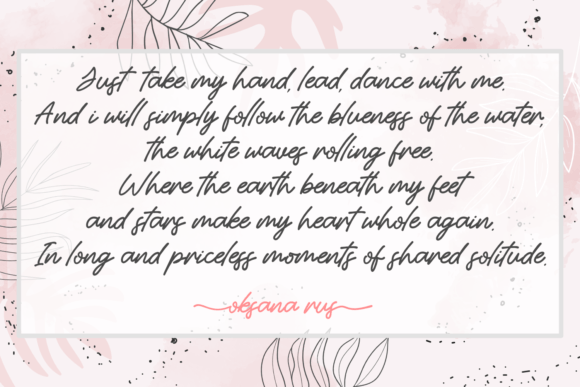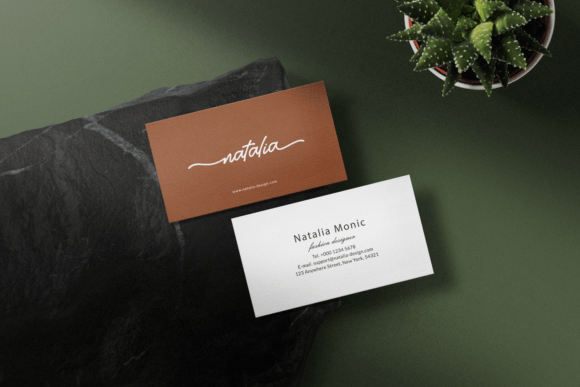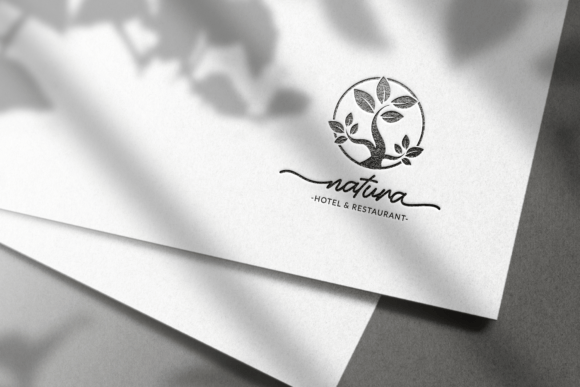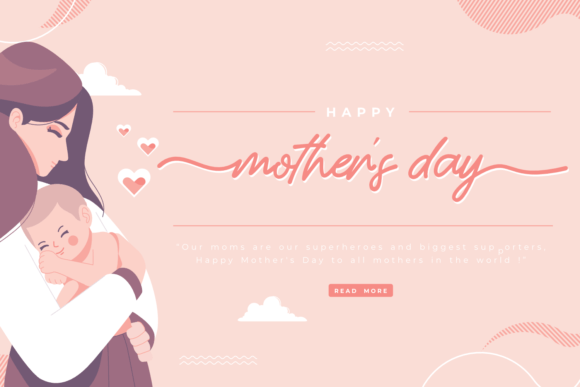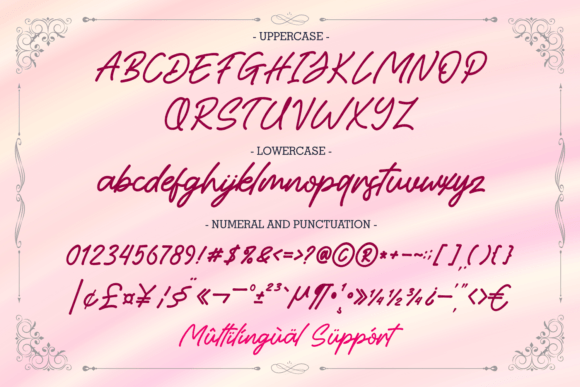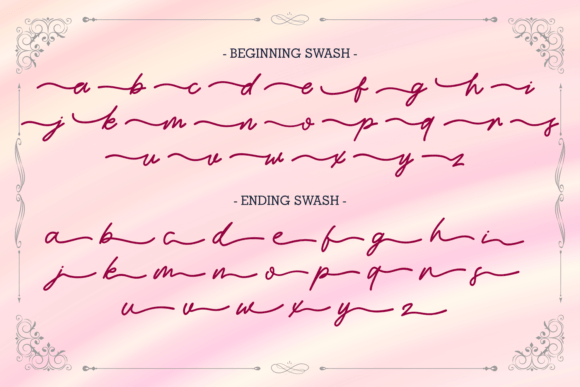
Discover the Magic of Hollanda Font
As a designer, you’ve probably experienced that moment when a project just isn’t coming together – until you stumble upon the perfect font. For me, it was a late-night design session, struggling to find the right aesthetic for a branding project. That’s when I discovered the Hollanda Font, and everything changed.
With its delicate, elegant, and flowing handwritten style, Hollanda Font adds a touch of sophistication to any design. Its beautiful and well-balanced characters make it a versatile choice for a wide range of creative projects. Whether you’re working on a high-quality design resource or need a font for a free download, Hollanda Font is a valuable addition to your toolkit.
As a valuable design resource, Hollanda Font is a must-have for designers looking to elevate their creative projects. Its transparent background and elegant style make it perfect for a variety of applications, from logos to packaging and beyond.
Key Features of Hollanda Font
- High-quality design resource for creative projects, ideal for graphic designers and artists.
- Features a unique, modern design that sets it apart from other fonts in its class.
Honest Review: Hollanda Font
As a designer, I’m always on the lookout for high-quality fonts to elevate my creative projects. The Hollanda Font is one such resource that caught my attention. With a free download option, it’s accessible to designers of all levels.
- Clean and modern design aesthetic that works well for digital and print media
- Transparent background makes it easy to layer over other design elements
While the Hollanda Font is a great resource, there are a few limitations to consider:
- Only available in a limited range of weights and styles
- Not ideal for projects that require a wide range of typography options
Overall, I’m impressed with the Hollanda Font. Its clean design aesthetic and transparent background make it a versatile resource for designers. While it may have some limitations, it’s a great option for those looking for a high-quality font for their creative projects.
Hollanda Font: A High-Quality Design Resource for Creative Projects
Tips for Getting the Most Out of Hollanda Font
To get the most out of Hollanda Font, use it with a transparent background to create a clean and minimalist look. You can also pair it with other fonts to create a unique and stylish design.
Common Use Cases for Hollanda Font
Hollanda Font is perfect for creative projects such as logos, brochures, business cards, and social media graphics. It’s also great for use in presentations and documents where a high-quality font is needed.
Q: Can I use the Hollanda Font with a transparent background?
Yes, the Hollanda Font supports transparent backgrounds, making it ideal for designs that require a high level of visual sophistication. When using the font in a design project, you can easily set the background to transparent, allowing the text to blend seamlessly with the surrounding elements. This feature is particularly useful for designers working on web-based projects or creating graphics with complex backgrounds.